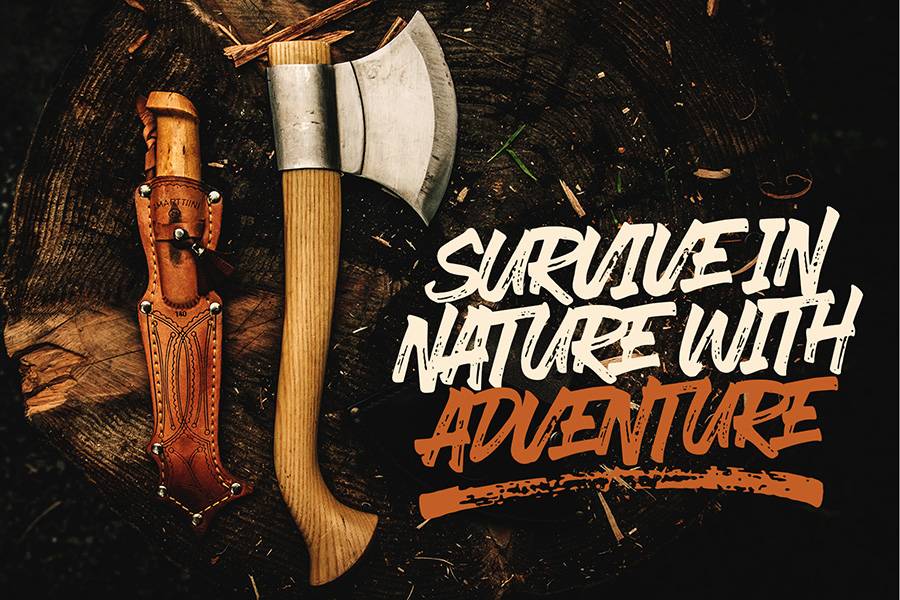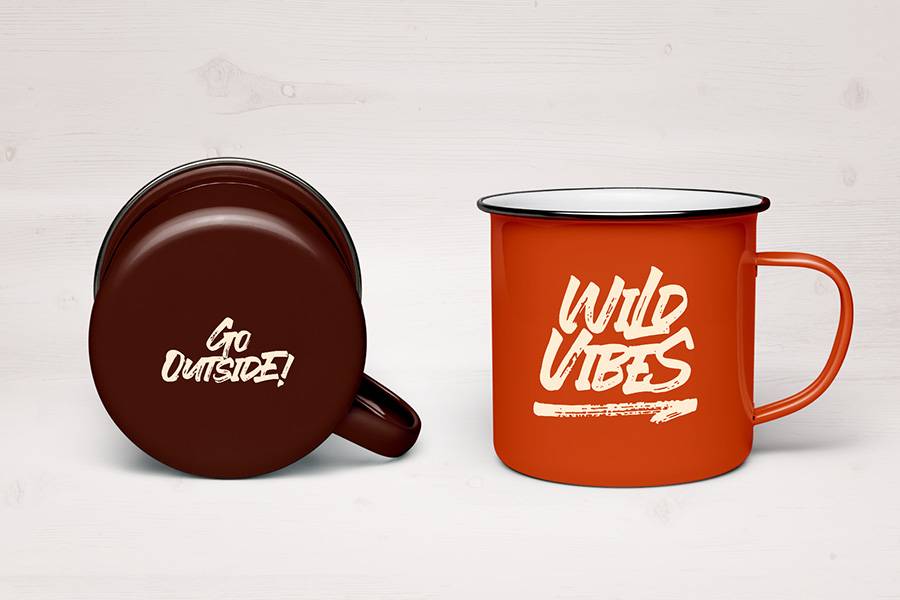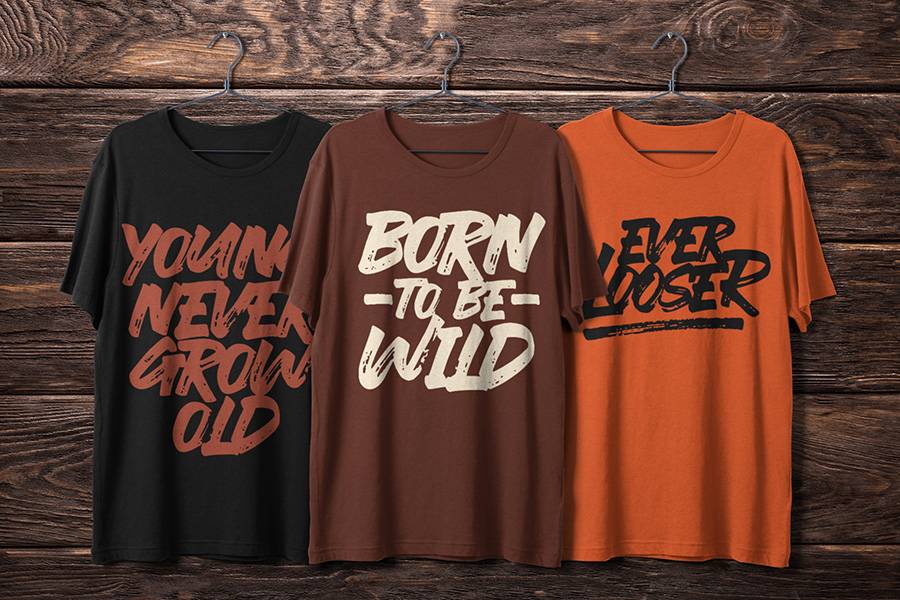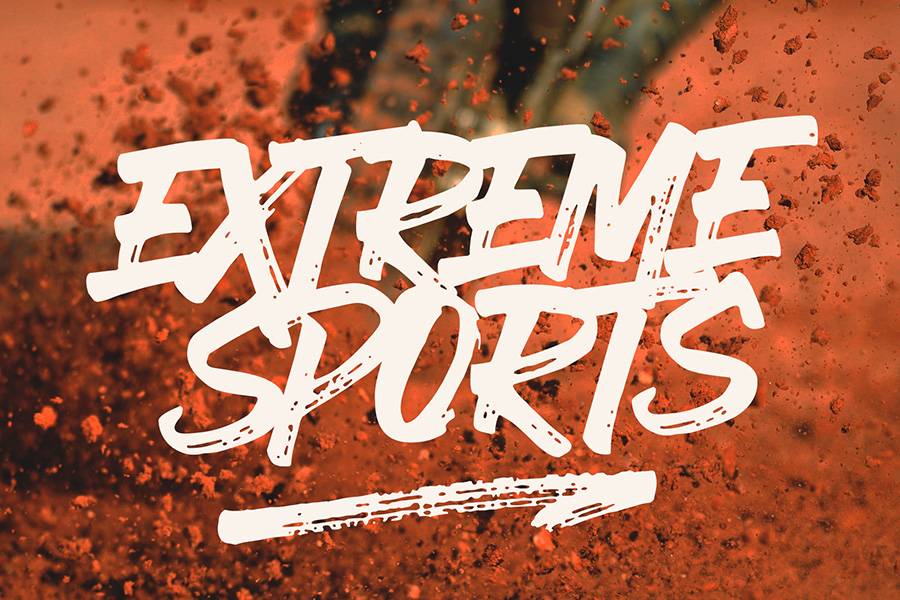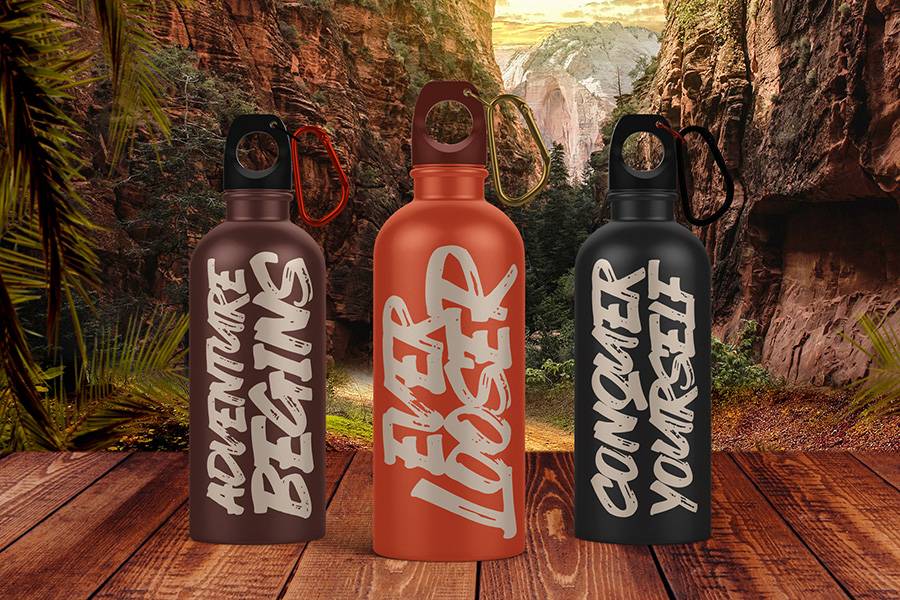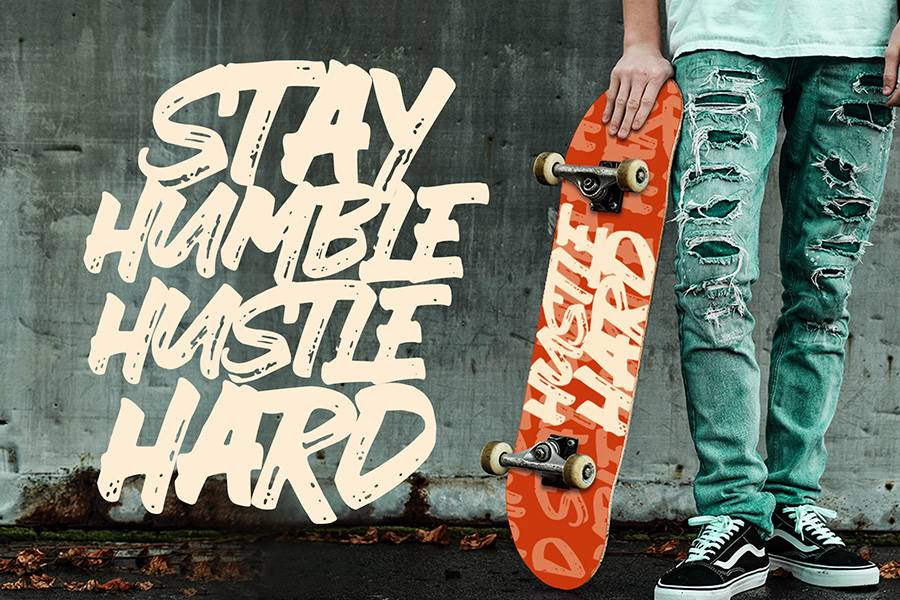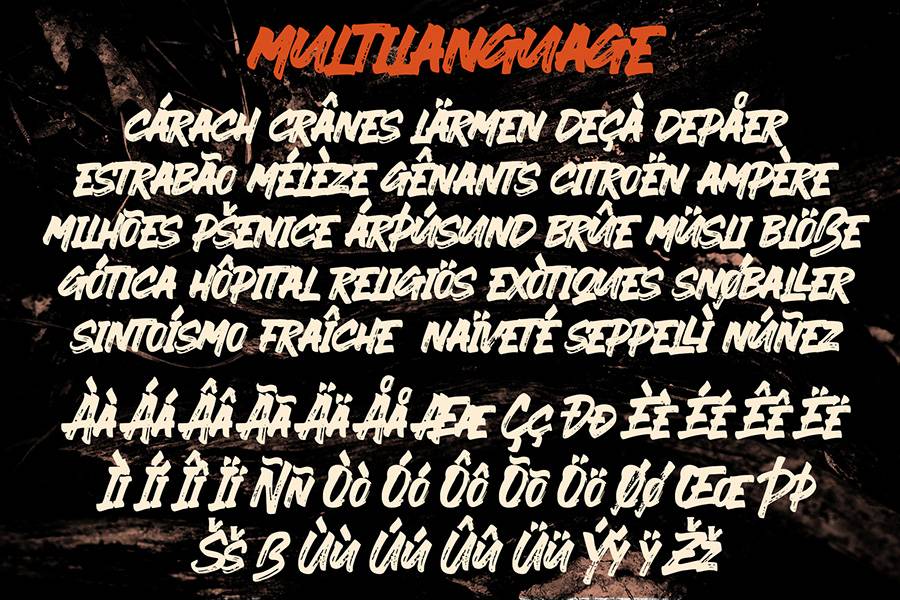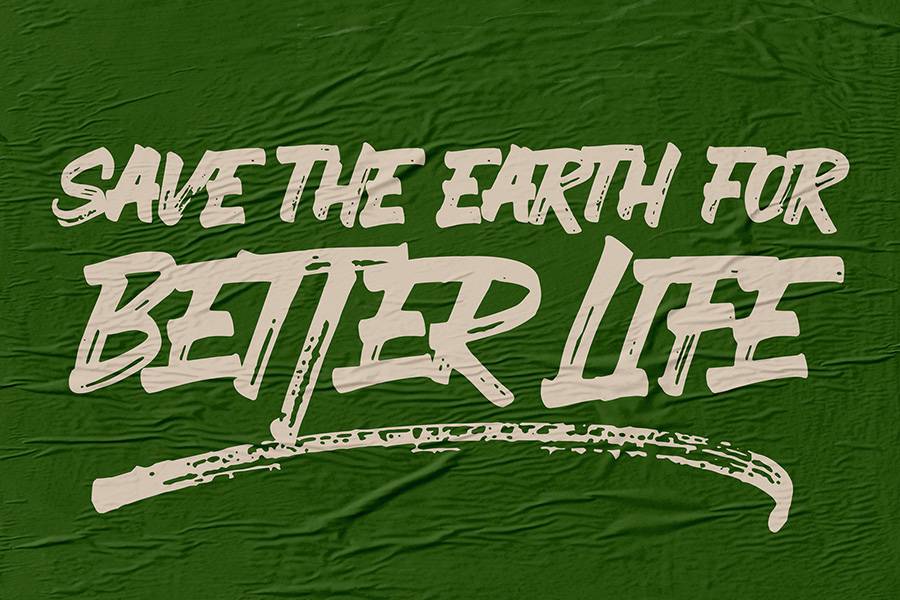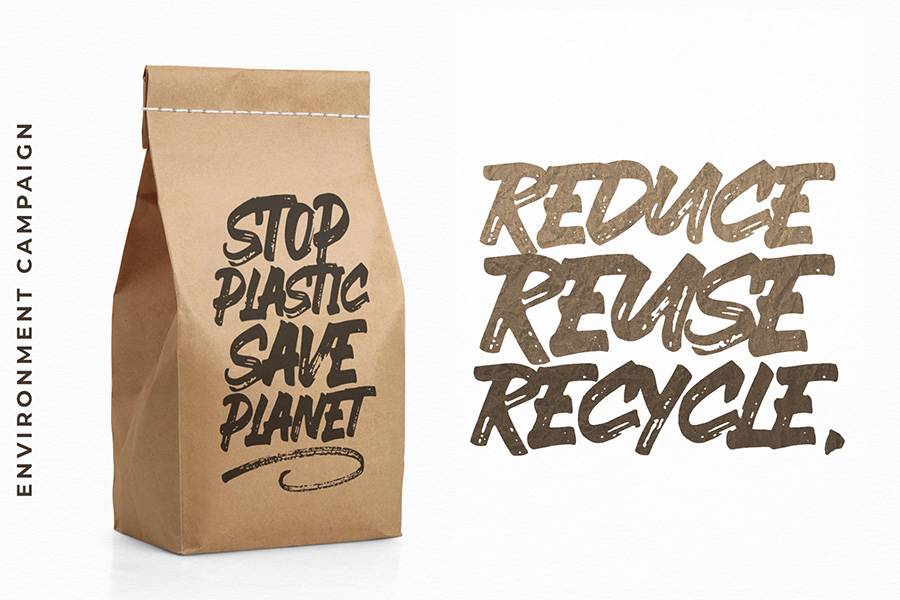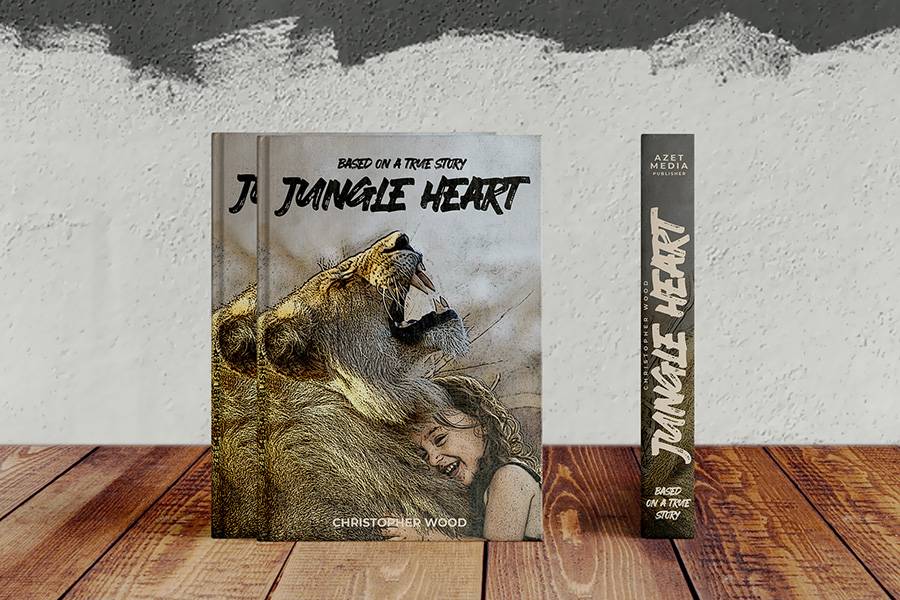
Ever Looser Wild Brush is a bold and energetic brush-style font with a rough, textured finish that gives it a hand-painted, expressive look. Its all-caps design features irregular strokes and a dynamic flow, making it perfect for adventurous and creative projects that want to convey a sense of spontaneity and raw artistic flair. This font works especially well for posters, logos, and branding that aim to stand out with a wild, edgy personality.
Ever Looser Wild Brush Font
About Ever Looser Wild Brush Font
| Font family | Ever Looser Wild Brush Font |
| Designer | Muh. Aswar from Azetype Studio |